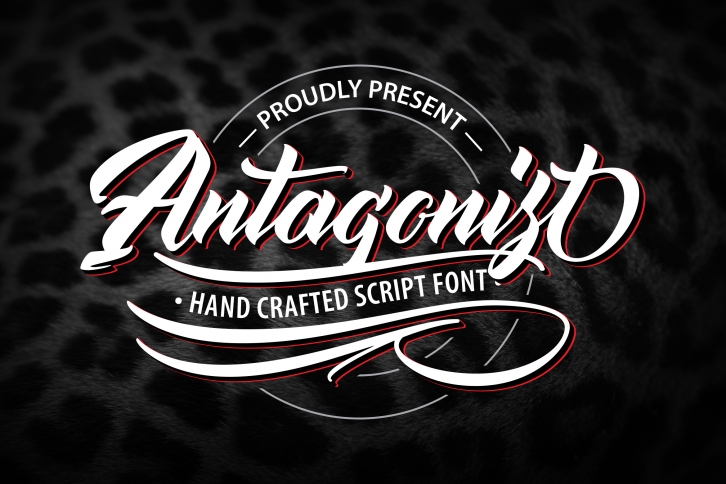
Antagonis | Handcrafted Script Font Download
Antagonis is a beautiful font that was designed by Vunira. It's a great choice for designers and creatives who need such a font. It was released on September 12, 2019 and the file size is 11.87 MB. Antagonis may give a more youthful, expressive and casual look to your project. It is a very beautiful, refined, elegant, and high-quality font.